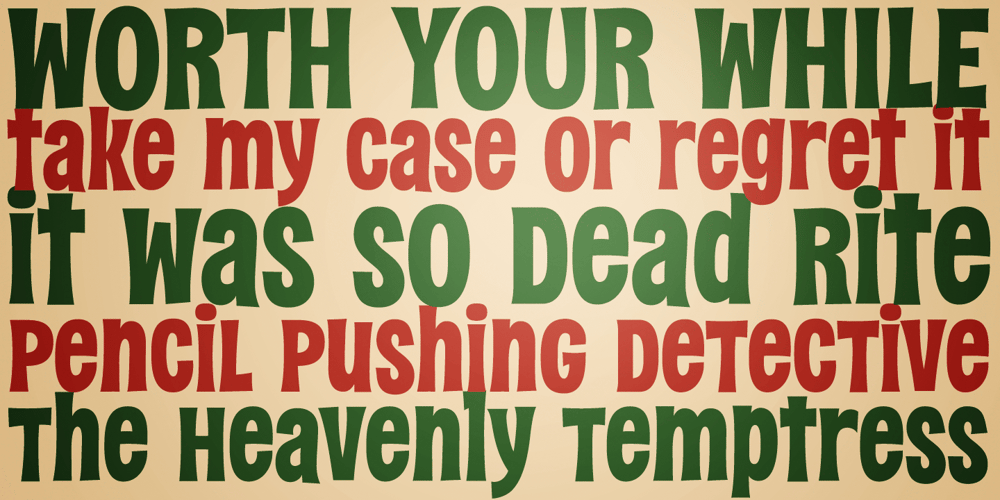
Dead Rite PB Font Family was designed by Phil Bracco and published by Pink Broccoli. Dead Rite PB contains 1 styles and family package options. A beefy unicase flare serif typeface inspired by a Frank Kane pulp paperback of the same name. Dead Rite is filled with awkward comic personality, mixing Capital and lowercase forms into a pseudo-unicase format that is a joy to play. A dangerous temptress, with large scale easily legible letterforms, this typographic conundrum is waiting for you to solve how it should be used for your designs!